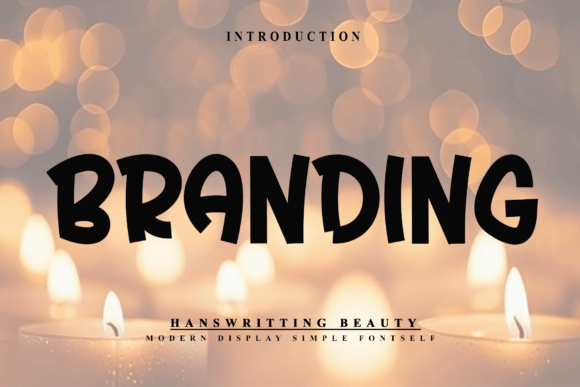
The Perfect Blend of Style and Simplicity
Have you ever stared at a blank canvas, searching for the perfect font to bring your design to life? The frustration of scrolling through endless options, only to find nothing that quite captures the essence of your vision, is a familiar feeling for many creatives. But what if I told you that there’s a font out there that effortlessly combines modern simplicity with a playful, approachable vibe?
Meet the Branding Font, a casual display font designed to add a fresh and friendly touch to any project. Its clean shapes, soft edges, and well-balanced letterforms make it perfect for posters, branding, packaging, and social media graphics. With its versatile character, this font is a valuable addition to any designer’s toolkit, delivering both readability and personality in equal measure.
Key Features of Branding Font
- Unique Characteristics: Branding Font features a distinctive, modern design with clean lines and geometric shapes, making it perfect for brands that want to convey a sense of innovation and sophistication.
Branding Font Review
I’ve had the chance to work with the “Branding Font” on a recent project, and I must say it’s been a mixed bag. On the plus side, ✨ the font is incredibly versatile and can be used in a wide range of contexts, from logos to body text. It’s also surprisingly easy to read, even at small sizes.
However, ✨ the font’s customizability can also be a double-edged sword. While it’s great that you can adjust the weight and spacing to suit your needs, it can be overwhelming to navigate the various options.
Here are some specific pros and cons I’ve encountered:
- ✨ Easy to read, even at small sizes
- ✨ Highly customizable
- ⚠️ Can be overwhelming to navigate the various options
- ⚠️ Limited support for certain languages
- ⚠️ Can be too bold or too light in certain contexts
Overall, I’d give the “Branding Font” 3.5 out of 5 stars. While it has its strengths, it also has some notable limitations that may make it less suitable for certain projects. With a bit more refinement and streamlining, I think this font could be truly top-notch.